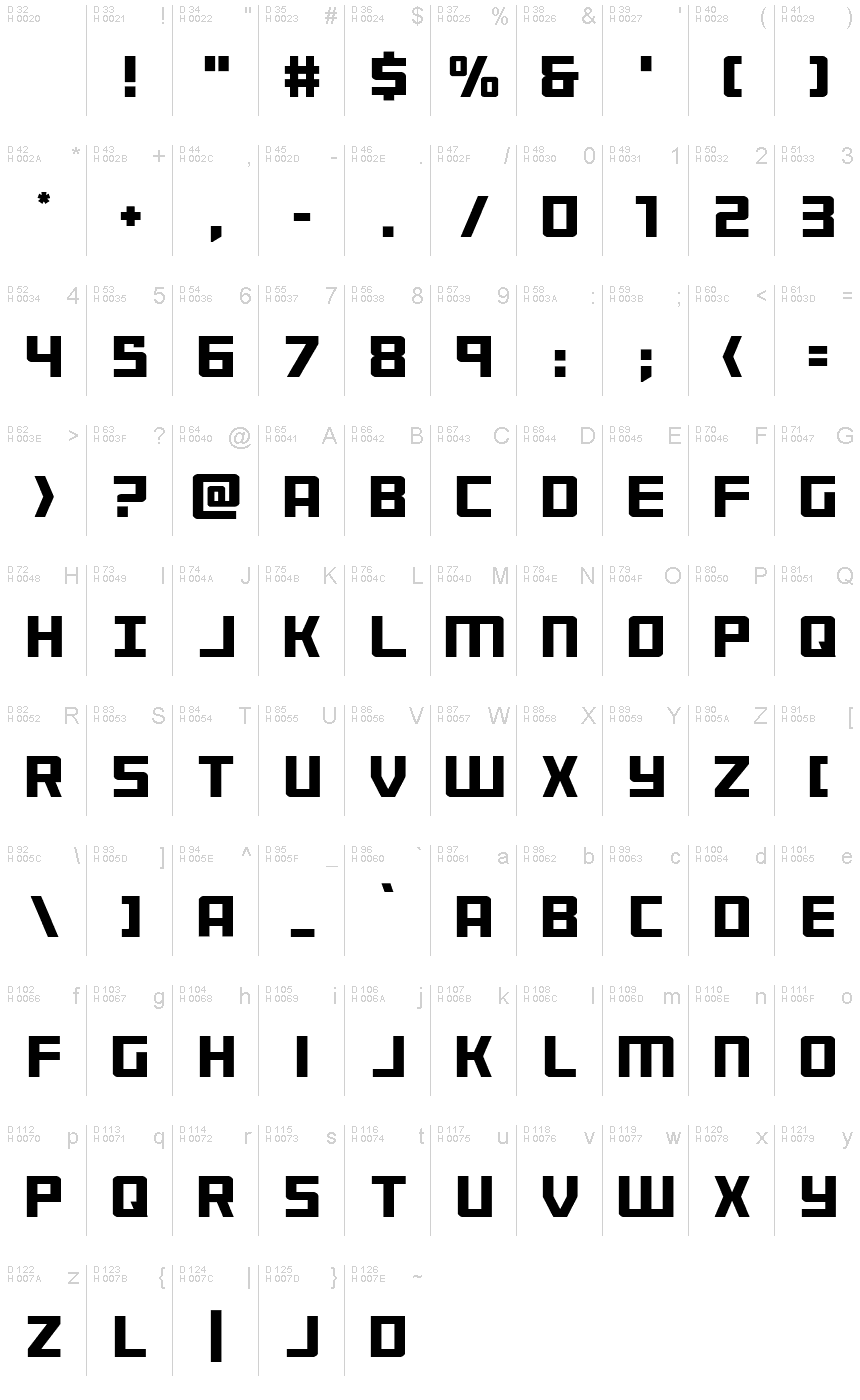
Brave Phoenix Spaced
Brave Phoenix Spaced, a captivating display font by Iconian Fonts, is the perfect choice for projects that demand a futuristic and dynamic feel. With its sleek and stylish techno style, this semi-bold typeface brings an air of sophistication to any design.
The expanded width adds an extra touch of boldness, making it ideal for eye-catching headlines, logos, and posters. From sci-fi movie titles to electronic music album covers, Brave Phoenix Spaced will elevate your designs with its unique blend of modernity and elegance.